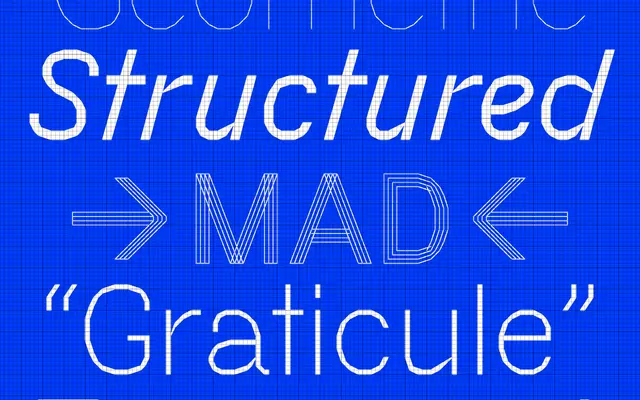
FC MAD Sans
Font Club Belgica · Dries Wiewauters · 2017
A sans-serif family rooted in AutoCAD plotter typefaces, built on a strict 45 UPM grid by Dries Wiewauters.
Designed by Dries Wiewauters after encountering CAD drawings at Werkplaats Typografie, MAD Sans takes its skeleton forms directly from found AutoCAD material and expands them through Light, Regular, Bold and Black weights with matching italics. A parallel Fill variant adds a second layer to the family, and both versions are available in Standard and Professional OpenType editions. The grid-constrained construction gives it a technical rigidity that reads equally well at small text sizes and large display settings.
Derived from AutoCAD plotter typefaces and constructed on a strict 45 UPM grid, MAD Sans occupies a niche between geometric sans and technical lettering, with its skeleton forms and grid-obedient construction setting it apart from conventional grotesques.